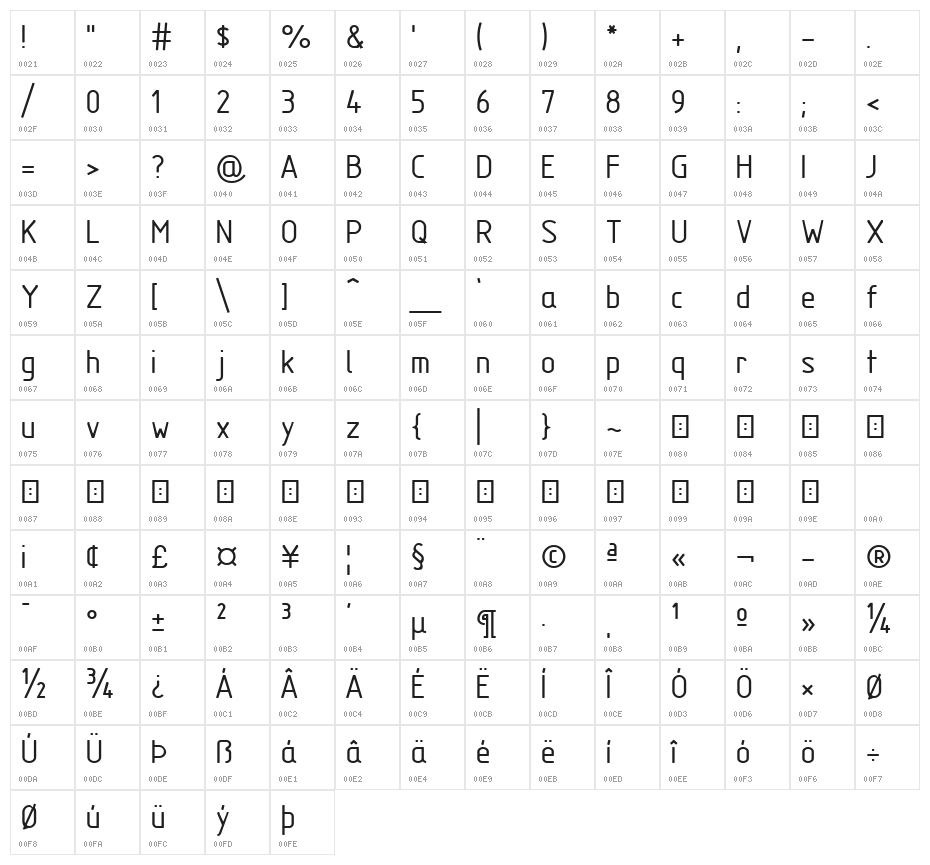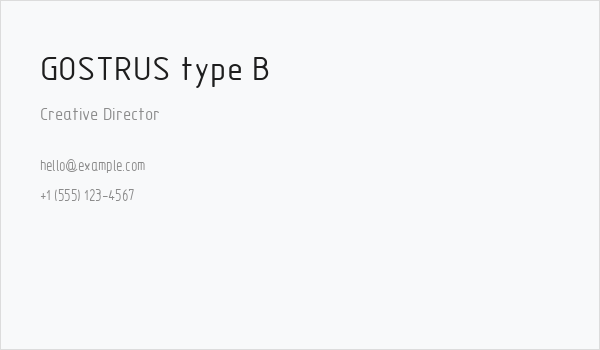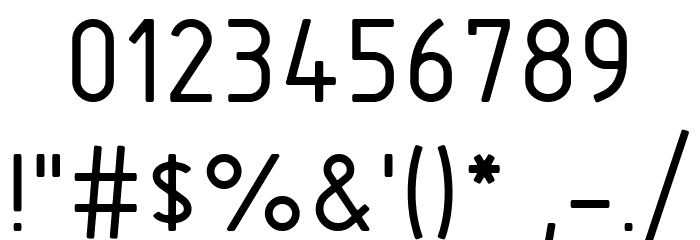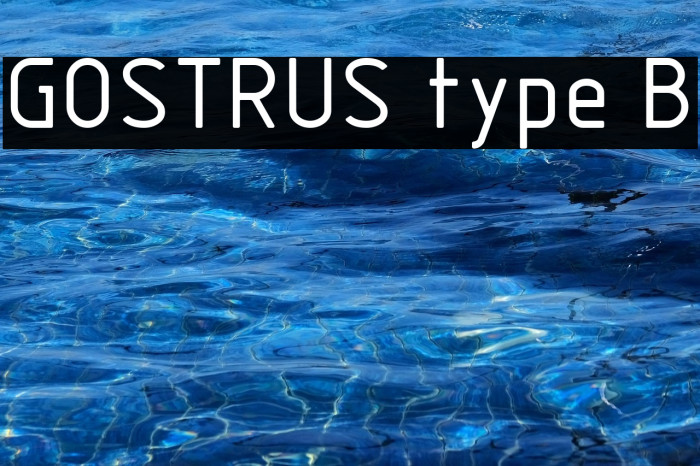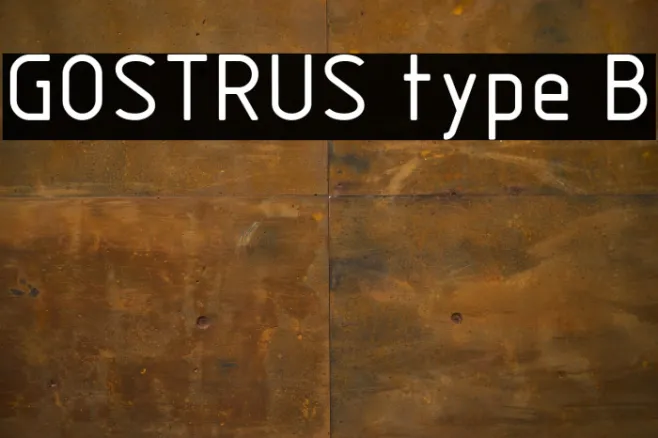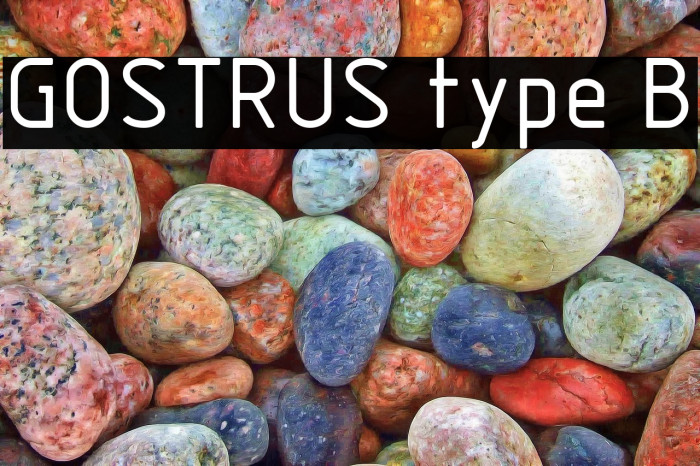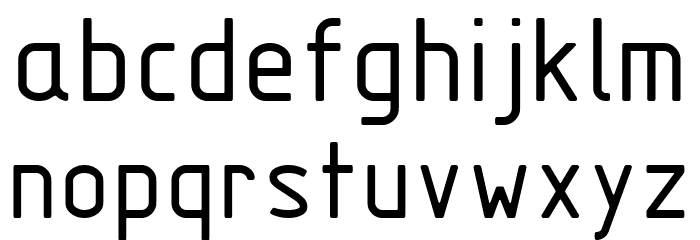
GOSTRUS type B Font
GOSTRUS type B Description
This font features a clean and geometric design with a modern aesthetic. The characters are constructed with consistent stroke widths, giving it a uniform appearance. The uppercase letters are tall and slightly narrow, while the lowercase letters maintain a similar width, creating a harmonious balance. The numerals are straightforward and align well with the overall style. Special characters are designed to match the geometric theme, ensuring a cohesive look across all elements. This font's simplicity and clarity make it highly legible, suitable for various applications.
| Proposed Projects | Ideal for technical manuals, signage, branding, and digital interfaces where clarity and modernity are essential. |